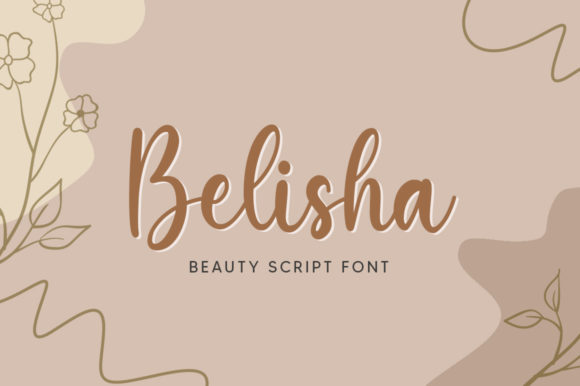
Introducing Belisha Font: The Perfect Handwritten Font for Romantic Designs
Are you looking for a font that can add a touch of romance and personality to your designs? Look no further than Belisha Font, a dainty and flowing handwritten font that is perfect for creating beautiful wedding invitations, cards, and other designs that require a sweet and joyful touch.
What is Belisha Font?
Belisha Font is a type of handwritten font that is characterized by its delicate and flowing strokes. It is a unique and elegant font that is perfect for adding a touch of sophistication and romance to any design. The font is inspired by traditional handwritten scripts, but with a modern twist that makes it perfect for contemporary designs.
Features of Belisha Font
Belisha Font has several features that make it an ideal choice for romantic designs. Some of its key features include:
- Dainty and flowing strokes: The font features delicate and flowing strokes that give it a romantic and elegant feel.
- Handwritten style: The font is designed to look like it was written by hand, giving it a personal and unique touch.
- Sweet and joyful: The font has a sweet and joyful feel that makes it perfect for designs that require a positive and uplifting tone.
- Versatile: The font is versatile and can be used for a variety of designs, including wedding invitations, cards, and other romantic designs.
Uses of Belisha Font
Belisha Font is perfect for a variety of designs that require a romantic and personalized touch. Some of the most popular uses of the font include:
- Wedding invitations: The font is perfect for creating beautiful and elegant wedding invitations that set the tone for the big day.
- Cards: The font is ideal for creating romantic cards for special occasions, such as Valentine’s Day, anniversaries, and birthdays.
- Romantic designs: The font is perfect for creating romantic designs, such as posters, flyers, and brochures, that require a sweet and joyful touch.
- Personalized gifts: The font can be used to create personalized gifts, such as customized mugs, t-shirts, and tote bags, that make thoughtful and unique presents.
Benefits of Using Belisha Font
There are several benefits to using Belisha Font for your designs. Some of the most significant benefits include:
- Unique and elegant: The font is unique and elegant, making it perfect for designs that require a touch of sophistication and romance.
- Easy to read: The font is easy to read, even at small sizes, making it perfect for designs that require a lot of text.
- Versatile: The font is versatile and can be used for a variety of designs, making it a great addition to any designer’s font library.
- Time-saving: The font can save designers time and effort, as it can be used to create beautiful designs quickly and easily.
How to Use Belisha Font
Using Belisha Font is easy and straightforward. Here are a few tips for getting the most out of the font:
- Choose the right size: Choose a size that is appropriate for your design. The font can be used at small sizes, but it’s best to use it at larger sizes to take advantage of its elegant and flowing strokes.
- Pair it with other fonts: Belisha Font can be paired with other fonts to create a unique and interesting design. Try pairing it with a sans-serif font for a modern and elegant look.
- Experiment with colors: The font can be used with a variety of colors to create a unique and eye-catching design. Try using it with pastel colors for a soft and romantic look.
Belisha Font is a beautiful and elegant handwritten font that is perfect for romantic designs. Its dainty and flowing strokes, sweet and joyful feel, and versatility make it an ideal choice for wedding invitations, cards, and other designs that require a personalized touch. With its ease of use and flexibility, Belisha Font is a great addition to any designer’s font library.
- What is Belisha Font?: Belisha Font is a dainty and flowing handwritten font that is perfect for romantic designs.
- What is Belisha Font used for?: Belisha Font is used for creating wedding invitations, cards, and other designs that require a sweet and joyful touch.
- Is Belisha Font easy to read?: Yes, Belisha Font is easy to read, even at small sizes.